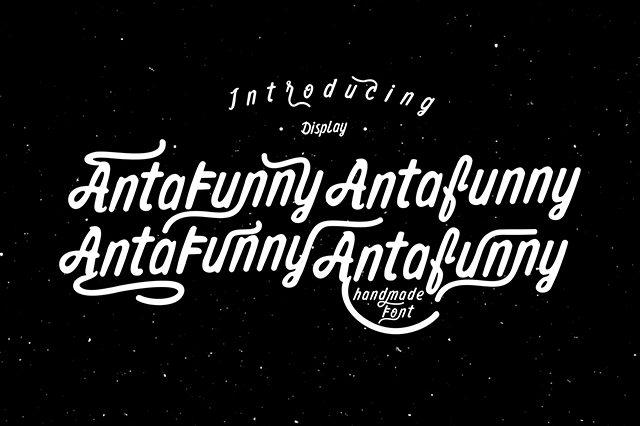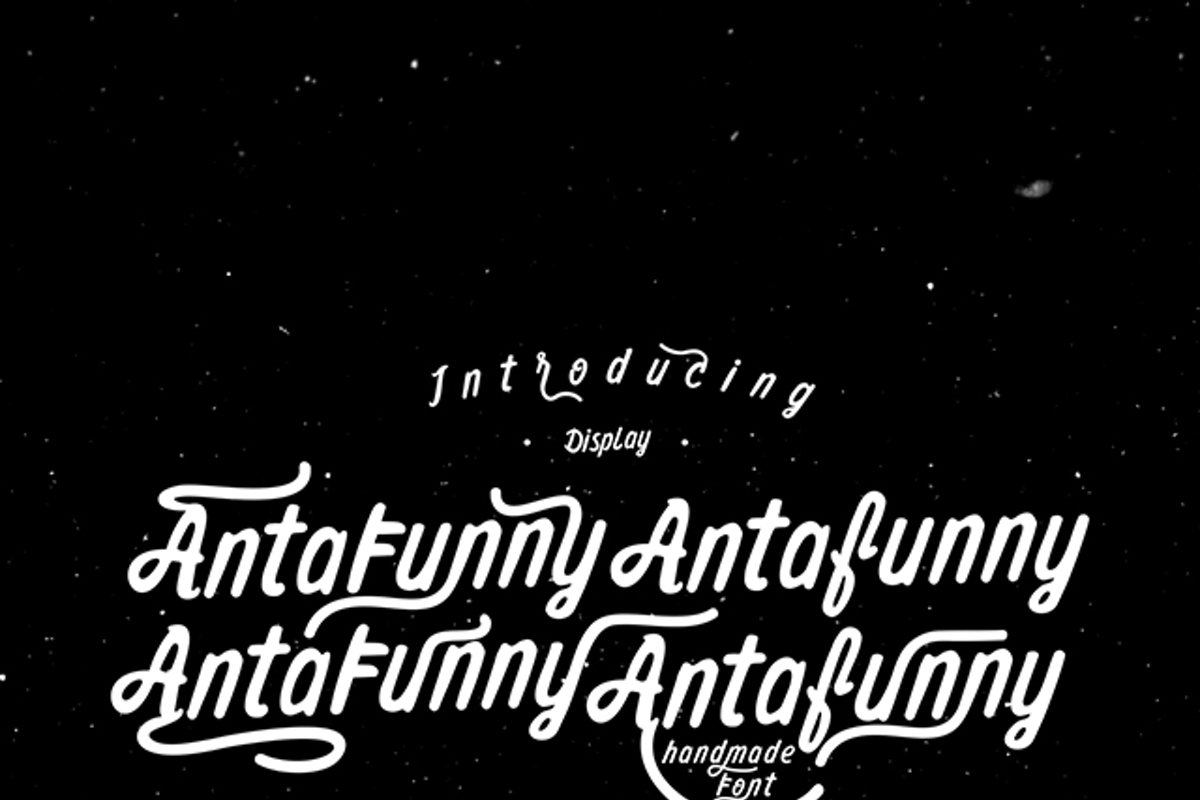
Antafunny Font
A handwritten, very suitable as to make a design choice for magazines, packaging, branding , website header, posters, greeting cards, letterhead, and many more other creative project. 437 glyphs with alternative characters.